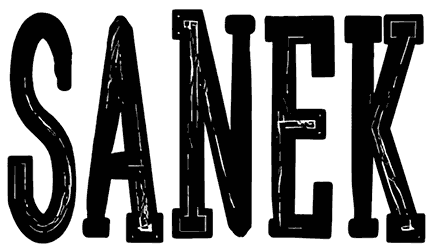
Sanek Font
If you are looking for an all-caps BBQ font to reinforce the vibe of professionalism, dynamic, vitality, or drama in your artwork, Sanek might be suitable and ideal for your needs. This magical eroded font is masterfully…
If you are looking for an all-caps BBQ font to reinforce the vibe of professionalism, dynamic, vitality, or drama in your artwork, Sanek might be suitable and ideal for your needs. This magical eroded font is masterfully crafted to become your faithful assistant in designing high-end graphic content like movie posters, editorial projects, business cards, invitations, or book covers.